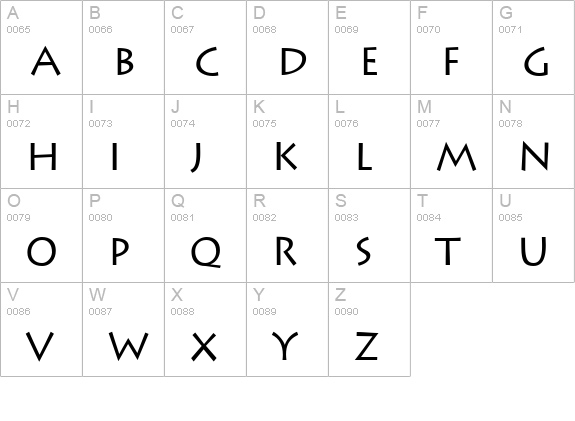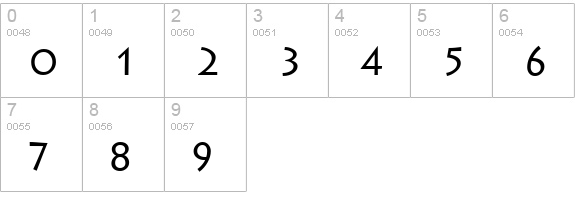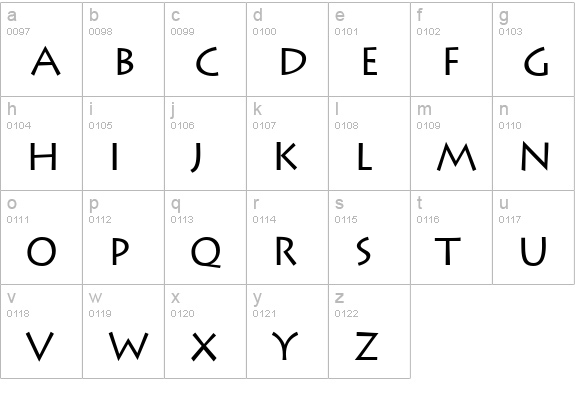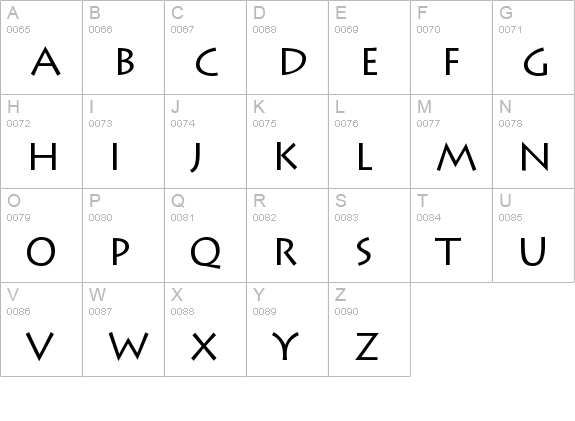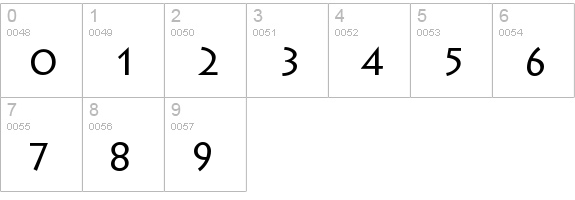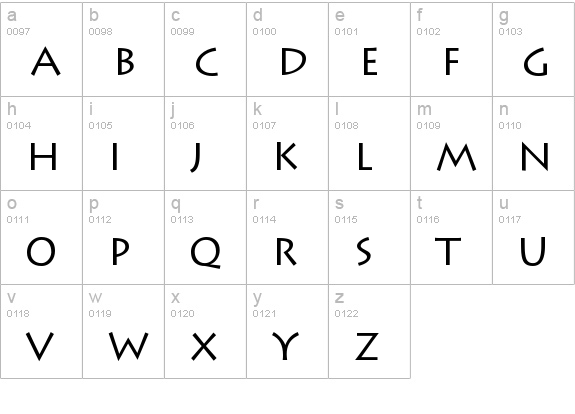
Liddie Regular is the standard, neutral variant in the Liddie typeface family \xE2\x80\x94 well suited to general body text, paragraphs, and standard typographic work.
Liddie Regular font is a modern and elegant typeface that exudes sophistication and versatility. With its clean lines and stylish curves, this font is perfect for a wide range of design projects, from branding to editorial layouts. The balanced proportions and smooth letterforms make Liddie Regular a go-to choice for creating a professional and polished look. What sets Liddie Regular font apart is that it is not only aesthetically pleasing but also free to download at FontsMarket.com. This means that you can access this high-quality typeface without any cost, making it a valuable addition to your font collection. Whether you're working on a personal project or a client's design, Liddie Regular font will elevate your work with its timeless appeal. Experience the beauty and versatility of Liddie Regular font today by downloading it for free from FontsMarket.com. Elevate your designs with this stunning typeface and see the difference it can make in your projects.